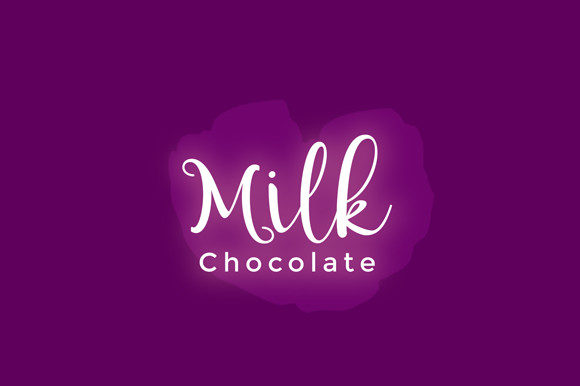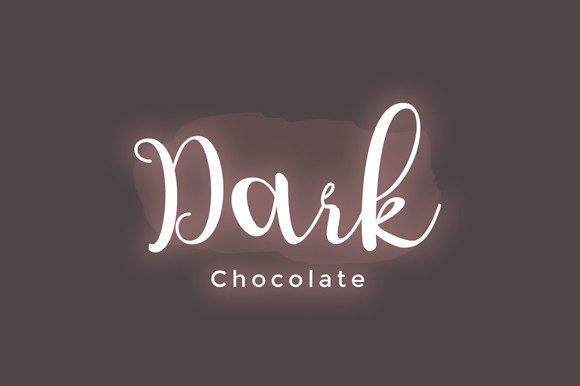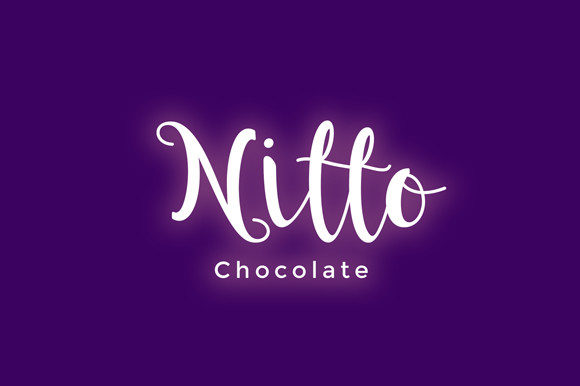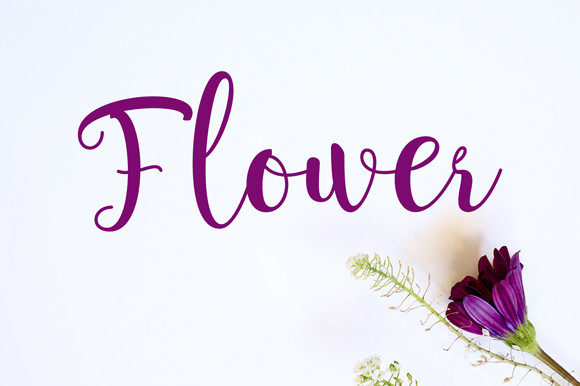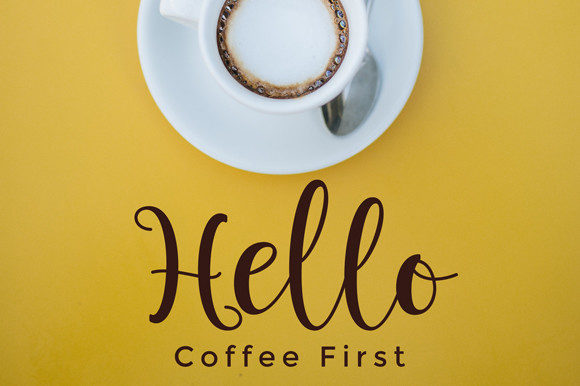
Introducing Chocolate Script Font: Elevate Your Designs with Elegance
Are you on the hunt for a modern script font that can add a touch of sophistication to your designs? Look no further than Chocolate Script Font. This beautifully crafted typeface is designed to bring a level of elegance and refinement to any project, making it a fantastic addition to your font library.
What Makes Chocolate Script Font Special?
Chocolate Script Font is a modern script font that boasts a high level of detail and craftsmanship. Its neat and elegant design makes it perfect for a wide range of applications, from creative projects like logos, branding, and advertising, to more practical uses like invitations, menus, and certificates.
One of the standout features of Chocolate Script Font is its versatility. Whether you’re working on a romantic wedding invitation or a luxury brand logo, this font is sure to impress. Its flowing lines and intricate details give it a sense of movement and fluidity, making it perfect for designs that require a touch of elegance and sophistication.
Key Features of Chocolate Script Font
- Modern Script Design: Chocolate Script Font features a modern script design that is both elegant and refined.
- Highly Detailed: The font boasts a high level of detail, making it perfect for designs that require a level of sophistication.
- Neatly Crafted: The font is neatly crafted, with flowing lines and intricate details that give it a sense of movement and fluidity.
- Versatile: Chocolate Script Font is versatile and can be used for a wide range of applications, from creative projects to more practical uses.
How to Use Chocolate Script Font in Your Designs
Chocolate Script Font is easy to use and can be incorporated into your designs in a variety of ways. Here are a few ideas to get you started:
- Logos and Branding: Use Chocolate Script Font to create a luxurious and sophisticated logo or brand identity.
- Wedding Invitations: Add a touch of romance and elegance to your wedding invitations with Chocolate Script Font.
- Advertising: Use the font to create eye-catching and sophisticated advertisements that are sure to impress.
- Menus and Certificates: Add a level of refinement and elegance to your menus and certificates with Chocolate Script Font.
Why Choose Chocolate Script Font?
There are many script fonts available, but Chocolate Script Font stands out from the crowd. Here are a few reasons why:
- Unique Design: Chocolate Script Font features a unique and elegant design that is sure to impress.
- High-Quality: The font is of high quality, with a high level of detail and craftsmanship.
- Versatile: Chocolate Script Font is versatile and can be used for a wide range of applications.
- Ease of Use: The font is easy to use and can be incorporated into your designs with ease.
In conclusion, Chocolate Script Font is a wonderful, modern script font that is sure to elevate your designs to the next level. Its elegant and refined design, highly detailed craftsmanship, and versatility make it a fantastic addition to your font library. Whether you’re a designer, craft, or DIY enthusiast, Chocolate Script Font is a must-have font that is sure to impress.